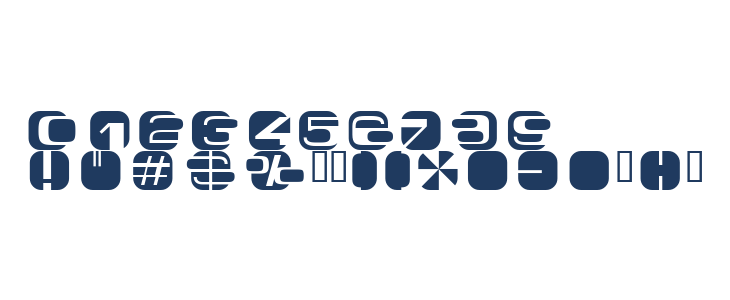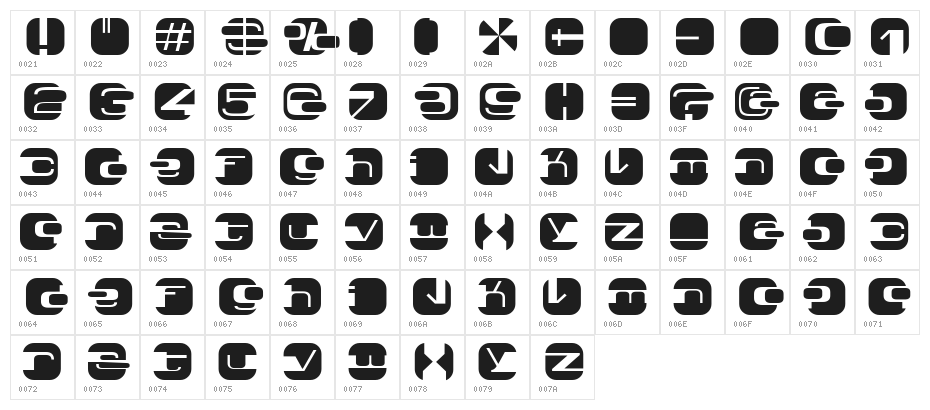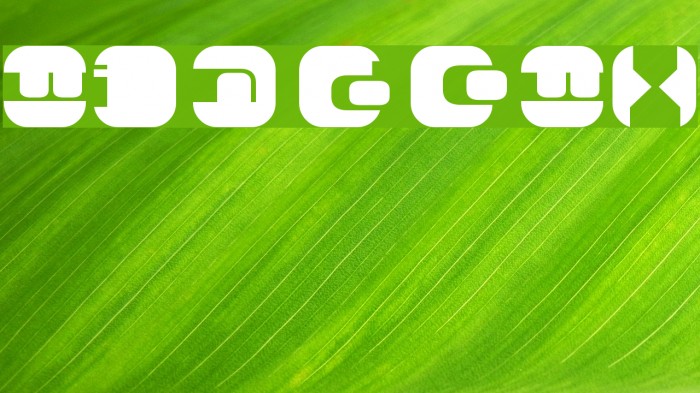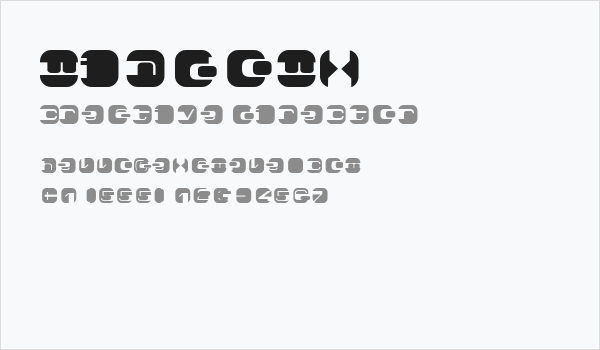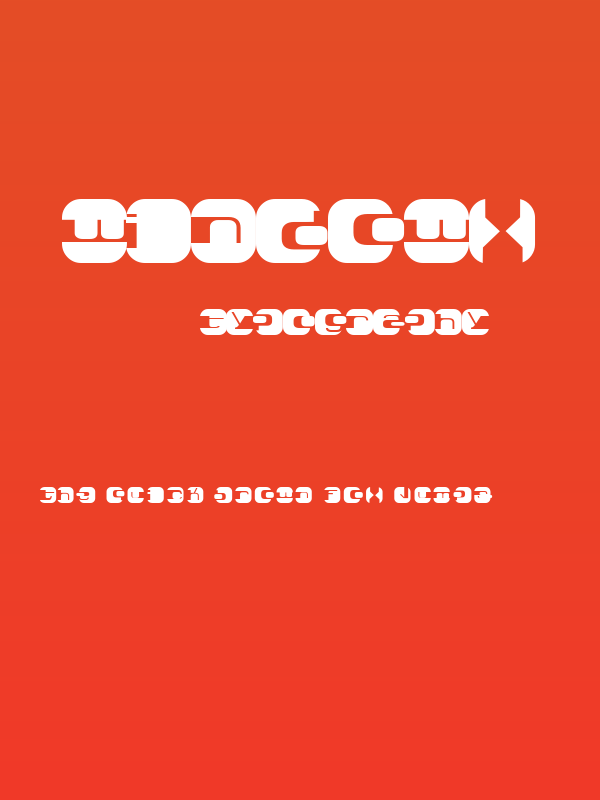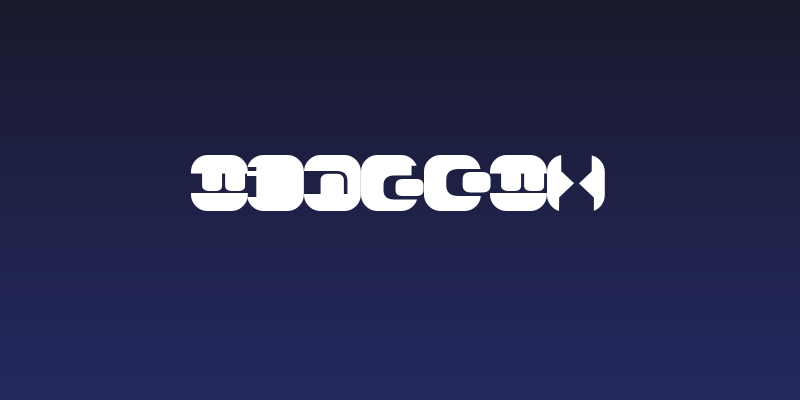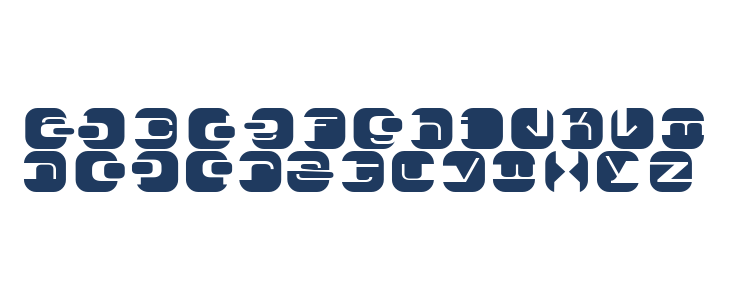
WindowX Font
WindowX Description
This font features a bold, futuristic design with a strong emphasis on geometric shapes and high contrast. The characters are constructed with thick, rounded strokes that create a sense of solidity and modernity. The unique style incorporates cut-out sections within each letter, adding a dynamic and abstract quality. The font's overall appearance is striking and unconventional, making it ideal for projects that require a bold statement. Its design is consistent across uppercase, lowercase, numbers, and special characters, maintaining a cohesive look throughout.
| Proposed Projects | Ideal for sci-fi themed designs, technology branding, video game titles, and modern art posters. |